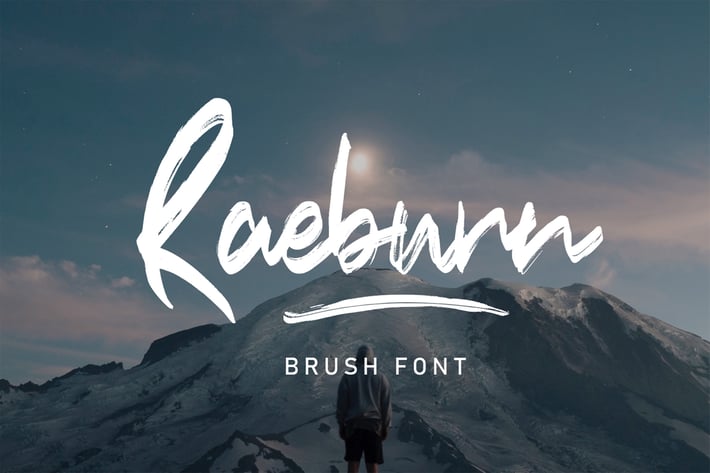
Raebrush Handwritten Font
Raebrush is a script font with distinctive handwritten characters perfect for branding projects, logos, wedding designs, media posts, advertisements, product packaging, product designs, labels, photography, watermarks, invitations, stationery, and any project which needs a handwritten feel.
Features : • Character Set A-Z • Numerals & Punctuations (OpenType Standard) • Accents (Multilingual characters) • Ligature • Alternate • Swash